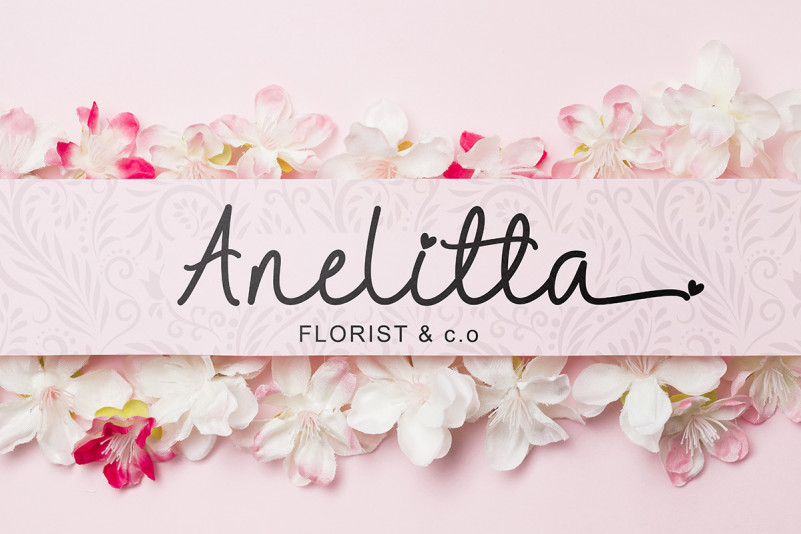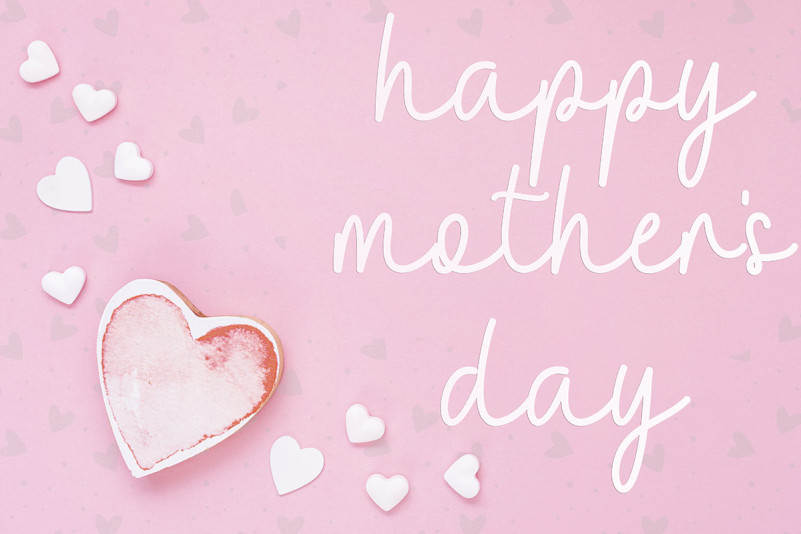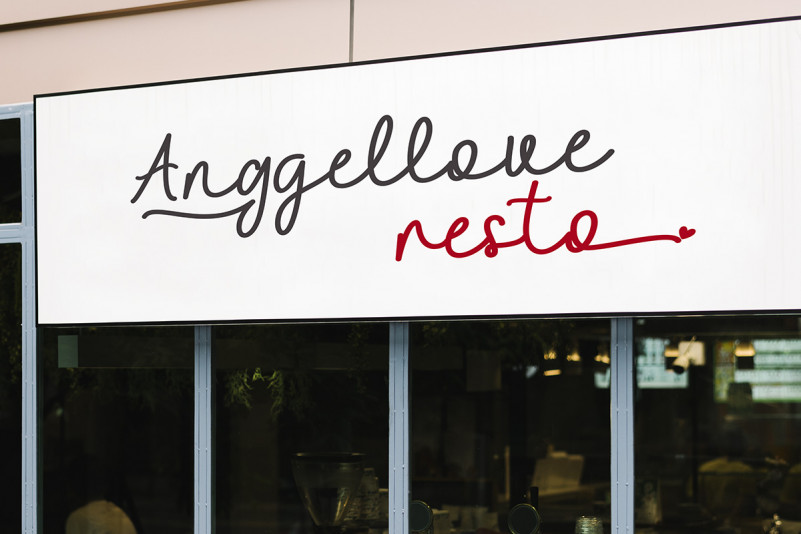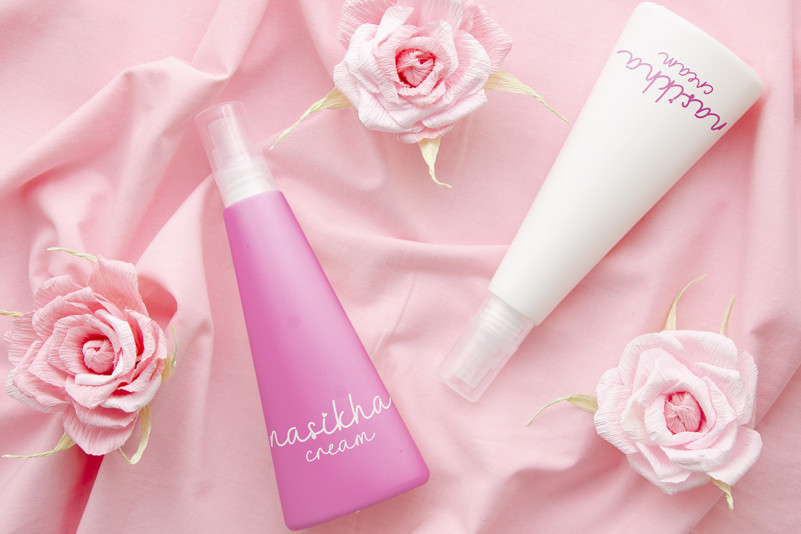
Amelline Font
Amelline Handwritten Font
This is a modern monoline script font that is very pretty and classy. This font can be used for all your purposes. The embellishments in this font are very easy to use. This font is perfect for spring, summer, holiday, traveling, wedding, invitations, greeting, birthday, mother day, father day, cinco de mayo, logos, branding, banner, poster, print, and others.